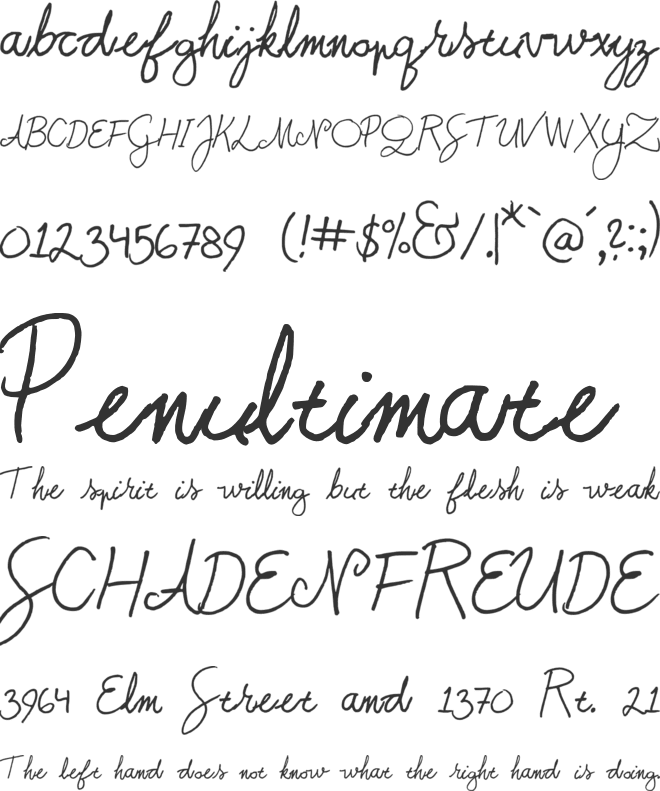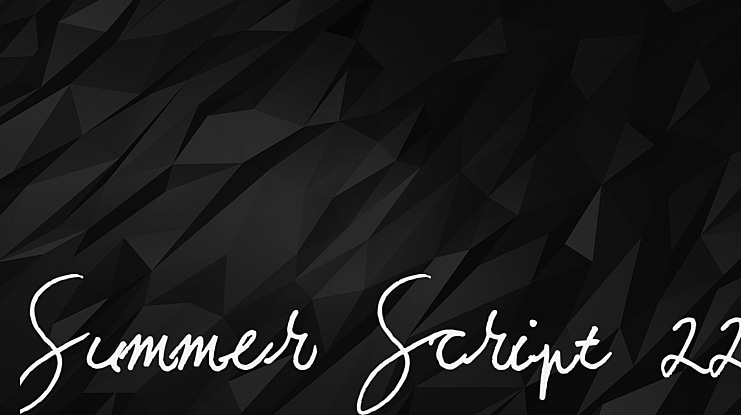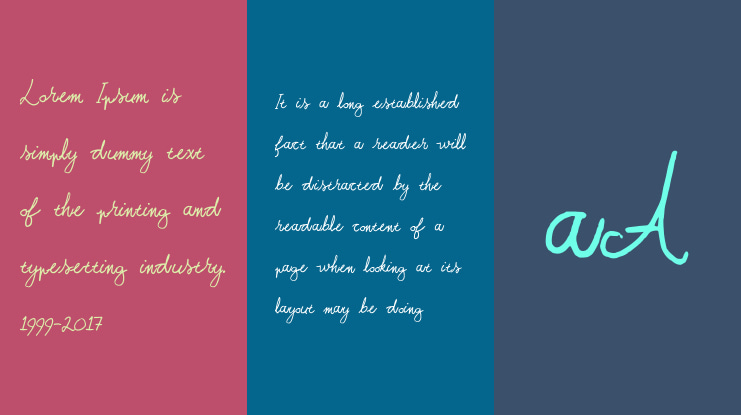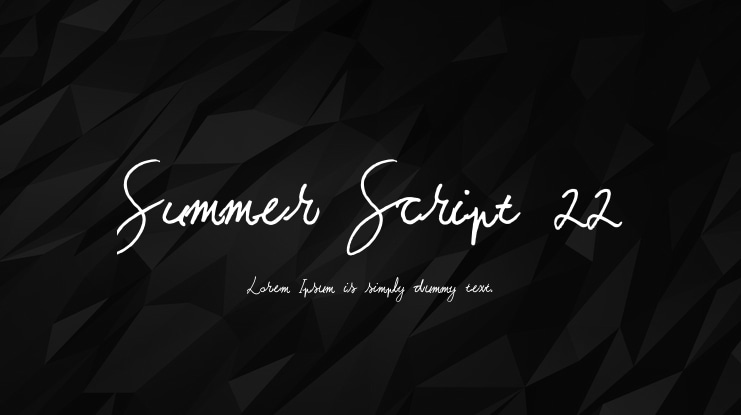
Summer Script 22 Font
If there were a style called "scriptlic", Summer Script 22 would belong to that category. This font is handdrawn, scanned, refined, and turned into a font with FontForge. Its carefree flow oozes the spirit of that one summer a long time ago.